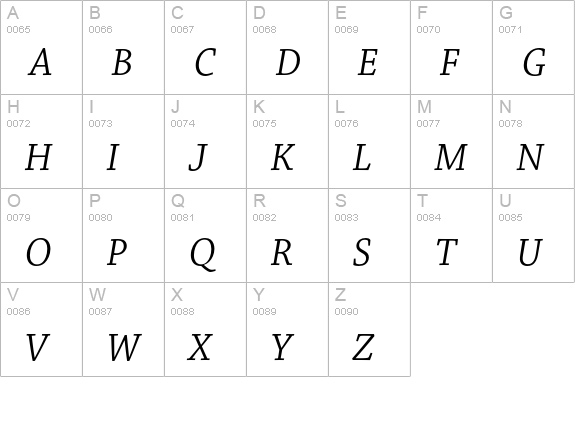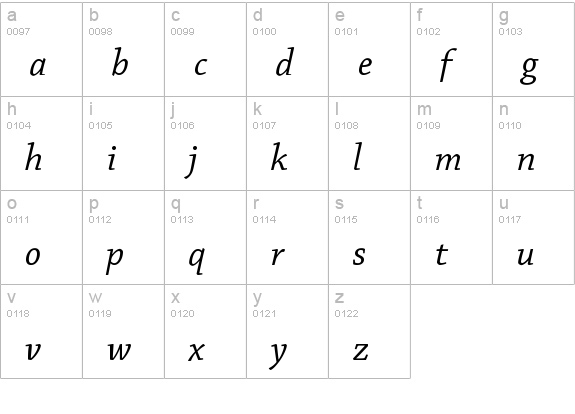
Chaparral Pro Italic Subhead Font Details
Chaparral Pro Italic Subhead is a distinctive, italic variant in the Chaparral typeface family \xE2\x80\x94 well suited to design and typography projects.
Chaparral Pro Italic Subhead font is a sophisticated and elegant typeface that exudes a sense of modernity and style. Its sleek italics add a touch of flair to any design, making it perfect for use in subheadings, titles, and other eye-catching elements. The fluid curves and graceful lines of this font make it a versatile choice for both print and digital projects. Best of all, Chaparral Pro Italic Subhead font is available for free download at FontsMarket.com. This means that you can easily access this high-quality typeface without any cost, making it a valuable addition to your font collection. Whether you're working on a professional project or a personal creative endeavor, Chaparral Pro Italic Subhead font offers the perfect blend of elegance and functionality.